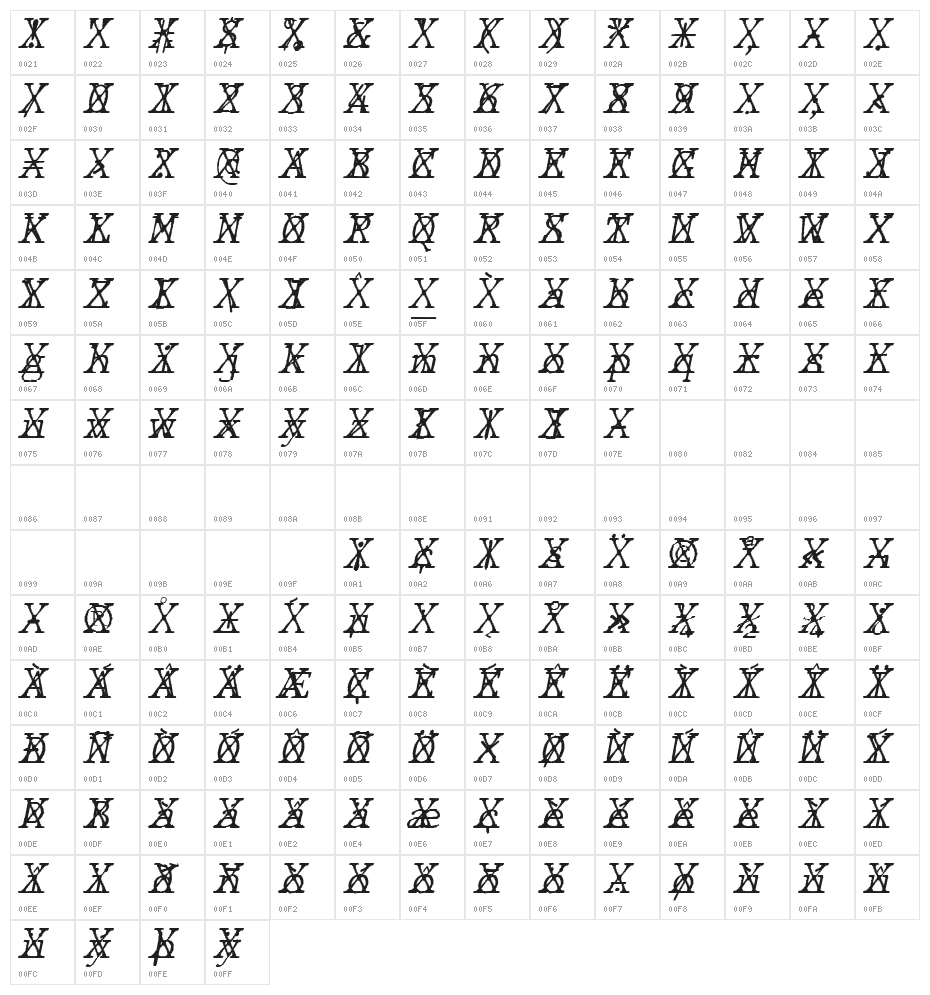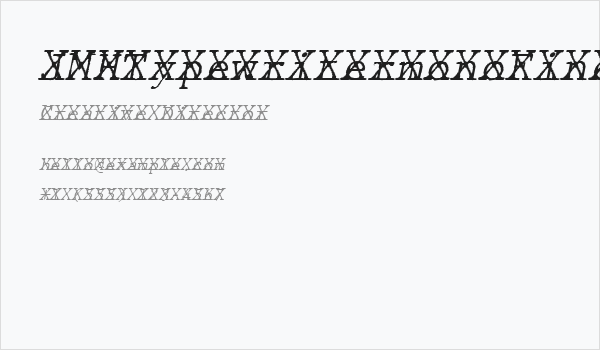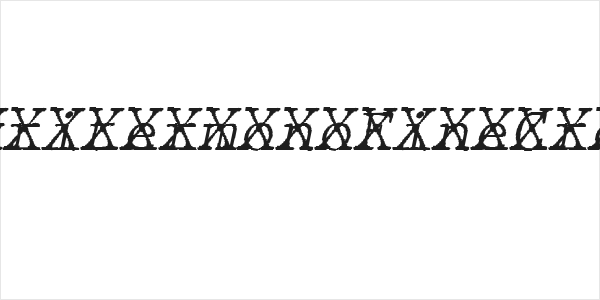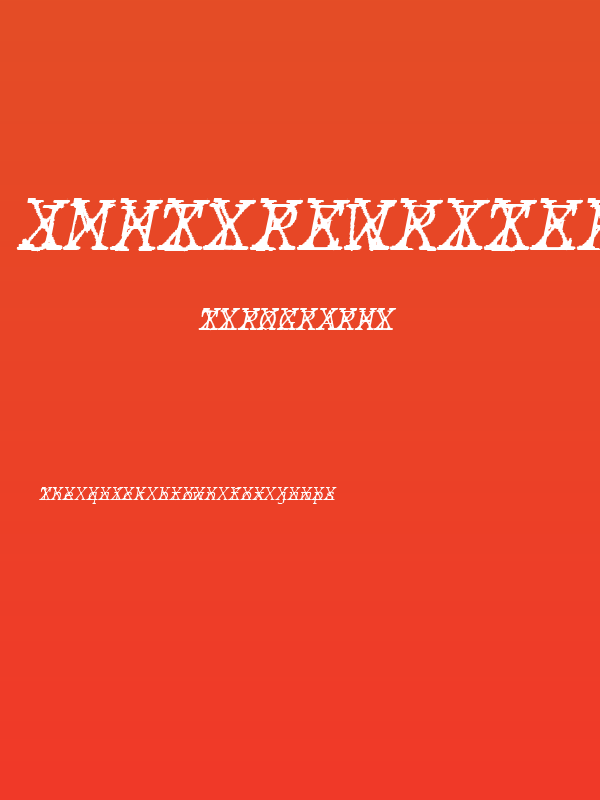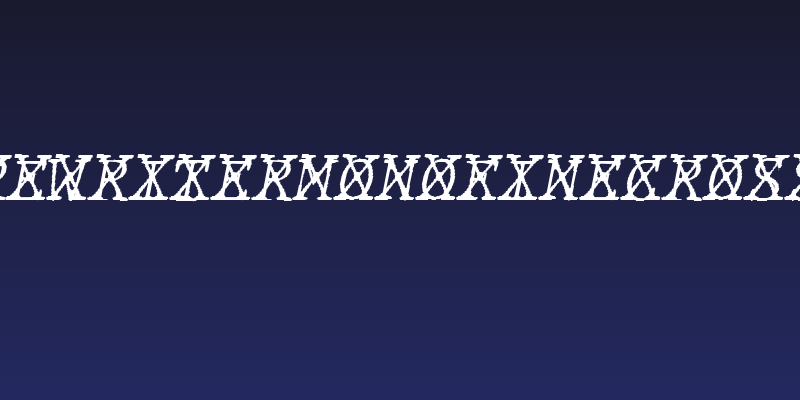
JMHTypewritermonoFineCross-Ital Font
JMHTypewritermonoFineCross-Ital Description
This font features a unique and intricate design with overlapping strokes that create a cross-hatched effect. The characters are monospaced, giving a consistent width to each letter and number. The style is reminiscent of typewriter fonts but with an added decorative twist, making it stand out with its artistic flair. The strokes are fine and delicate, yet the overlapping nature adds a boldness to the overall appearance. The italic slant gives it a dynamic and flowing feel, while the cross-hatching adds texture and depth. This font is ideal for projects that require a vintage or artistic touch, offering a blend of classic typewriter aesthetics with modern design elements.
| Overall Style | Vintage, Decorative |
| Use Case | Logos, Artistic projects, Posters |
| Proposed Projects | Ideal for artistic projects, vintage-themed designs, creative posters, and unique branding materials. |